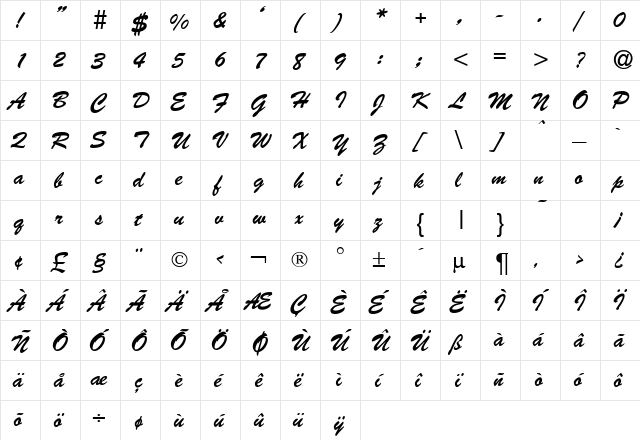
BrunnDB Normal Font Preview
BrunnDB Normal
Design Context for BrunnDB Typeface
BrunnDB takes a measured approach to typography — its balanced proportions and neutral character make it a reliable workhorse for both digital and print work.